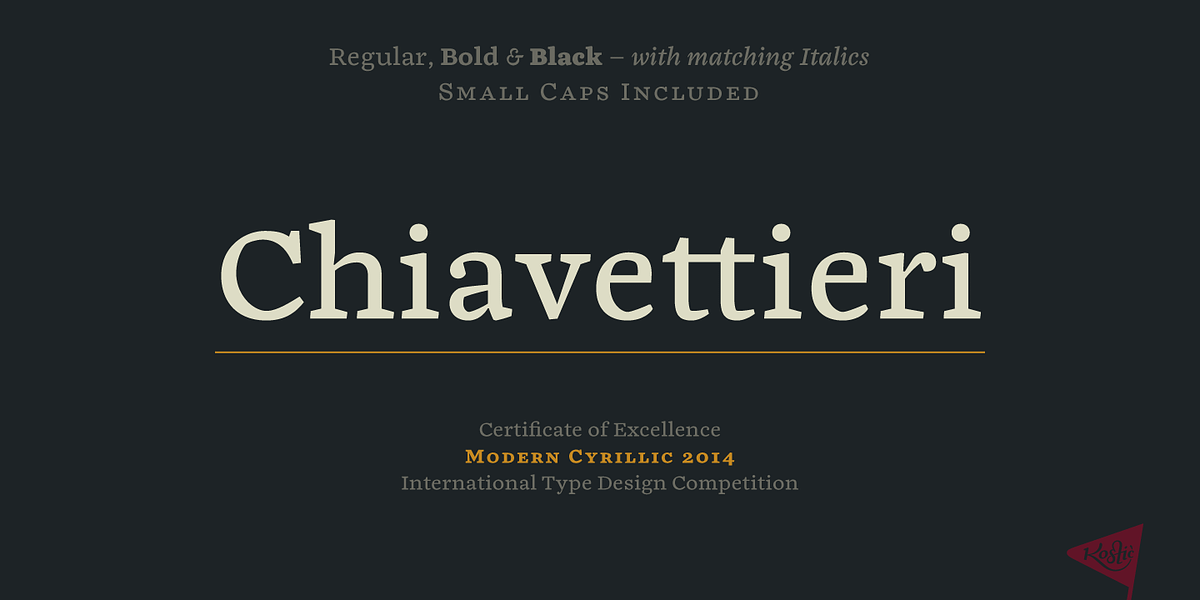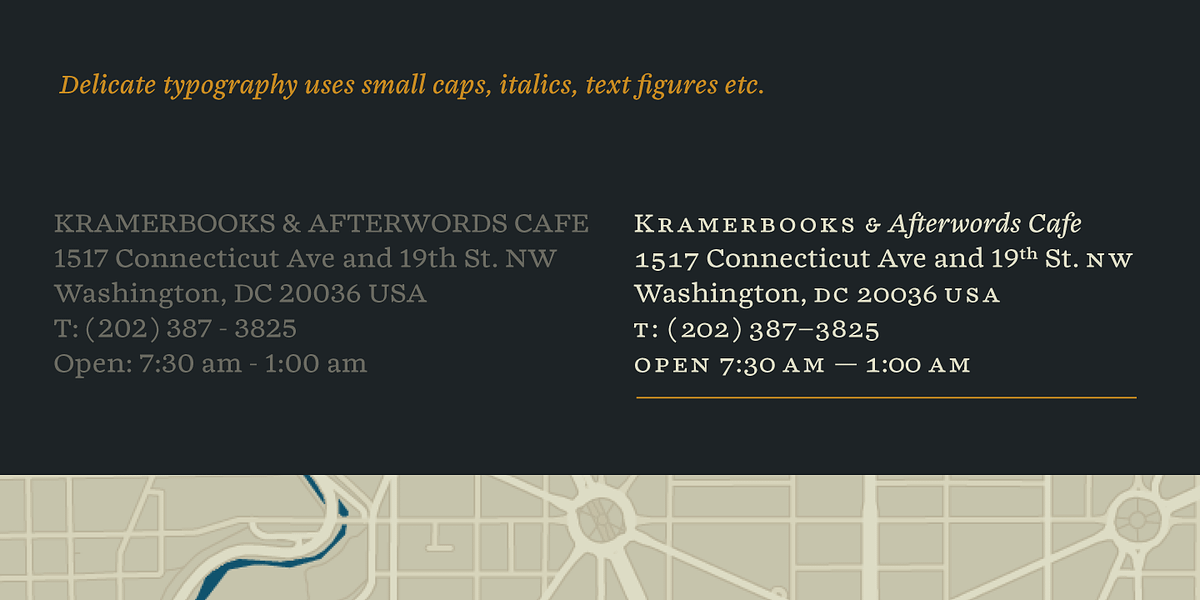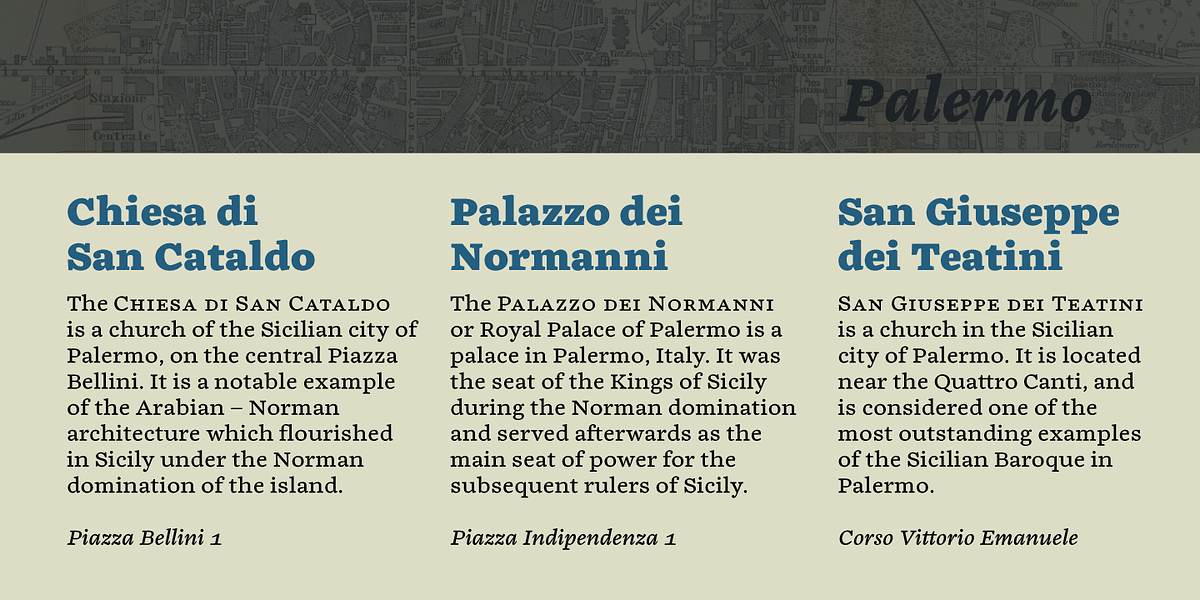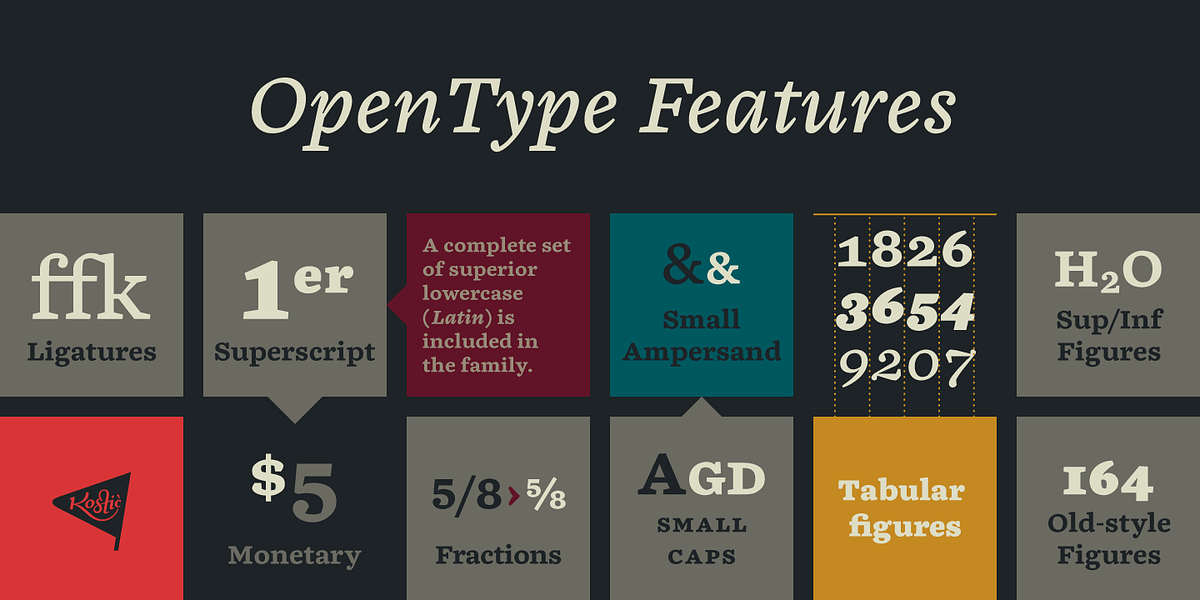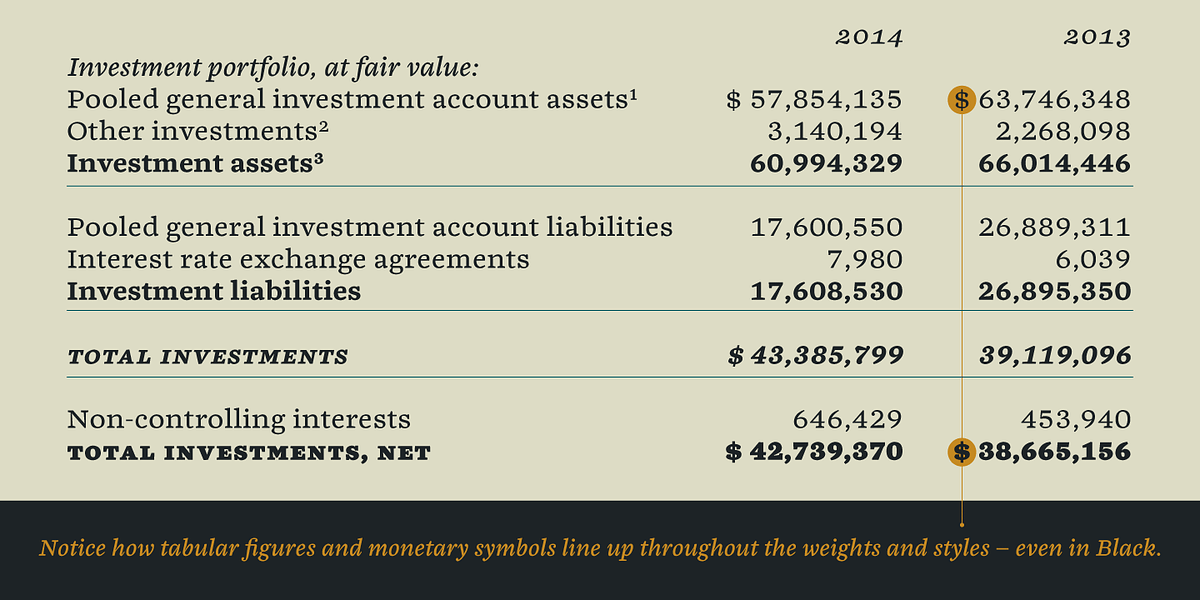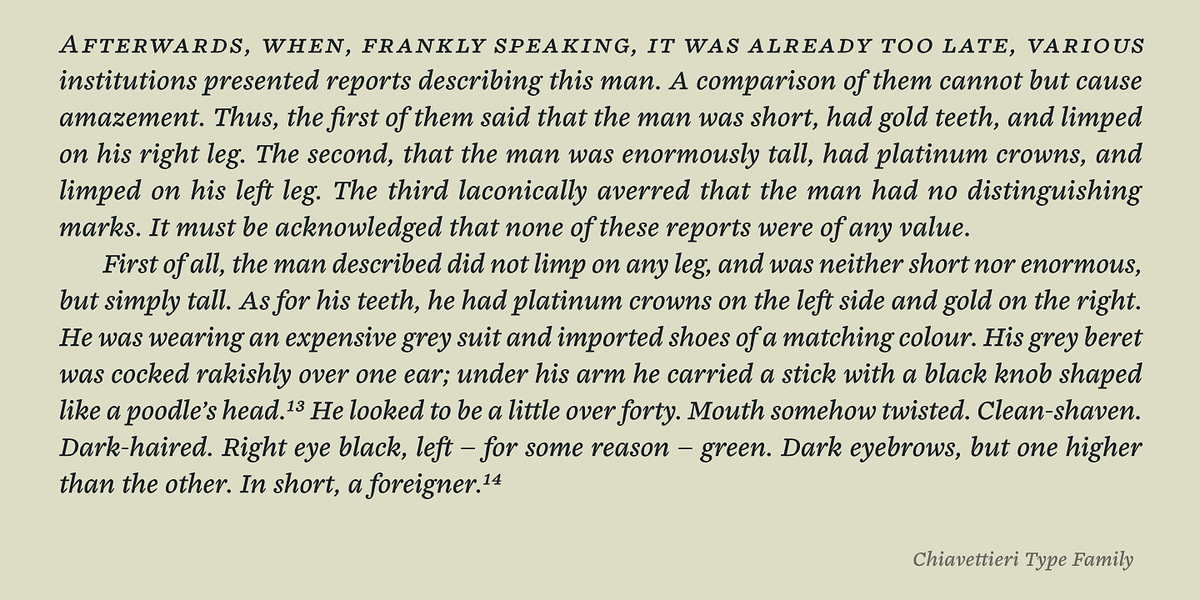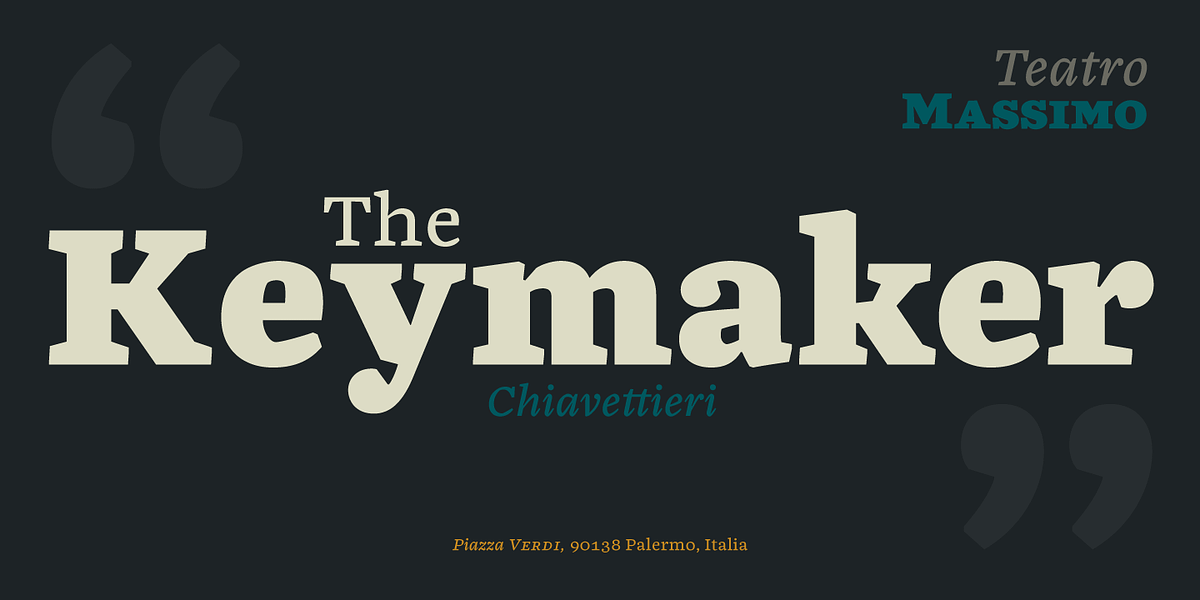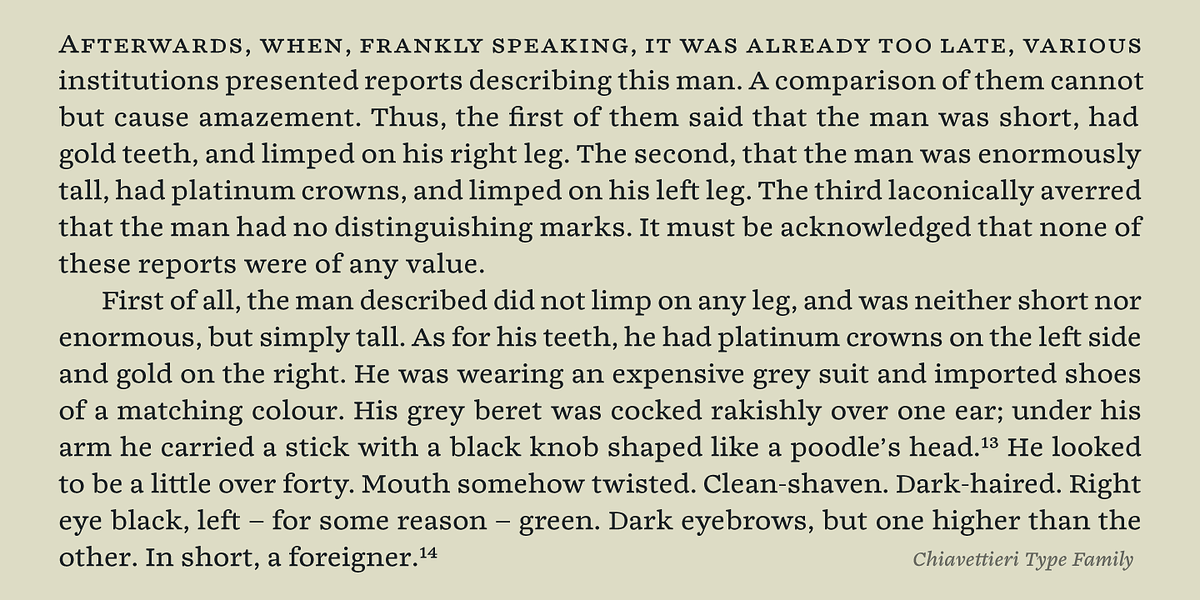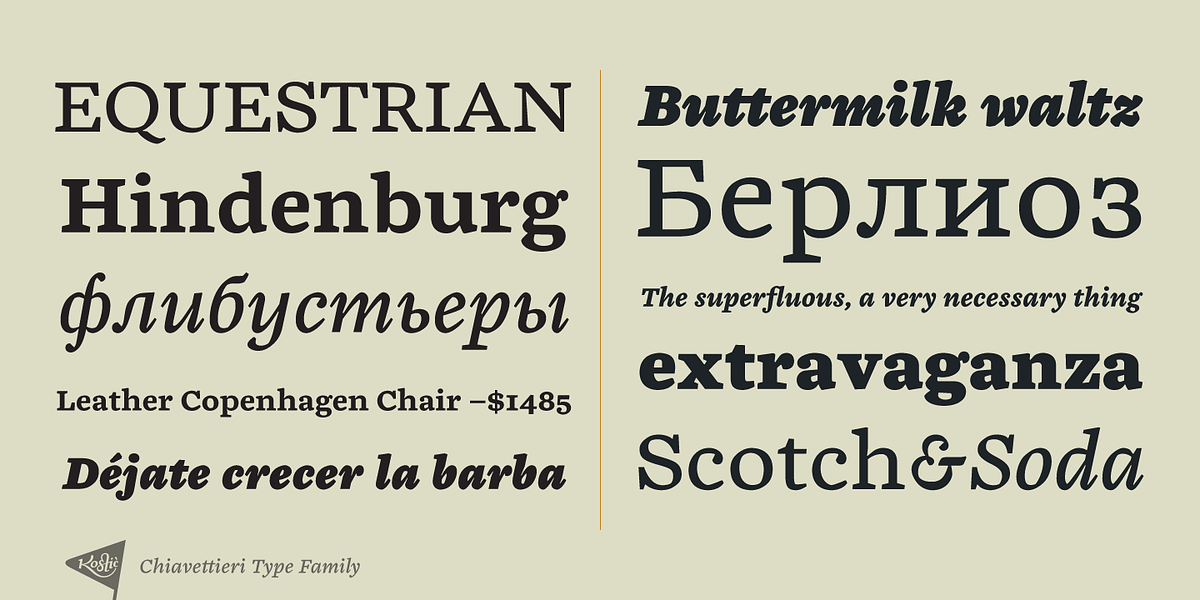
Chiavettieri
Chiavettieri is a serif typeface that draws inspiration from humanist typefaces. Its design features low contrast between thick and thin strokes, angled serifs, and sharp cuts in the ball terminals. The generous x-height contributes to its readability. This font is well-suited for book text, editorial and publishing projects, as well as web and screen applications due to its balance and legibility. Chiavettieri also includes a range of typographic features such as distinct italics, small capitals, superior lowercase letters, oldstyle and lining figures, ligatures, fractions, and superior and inferior characters.